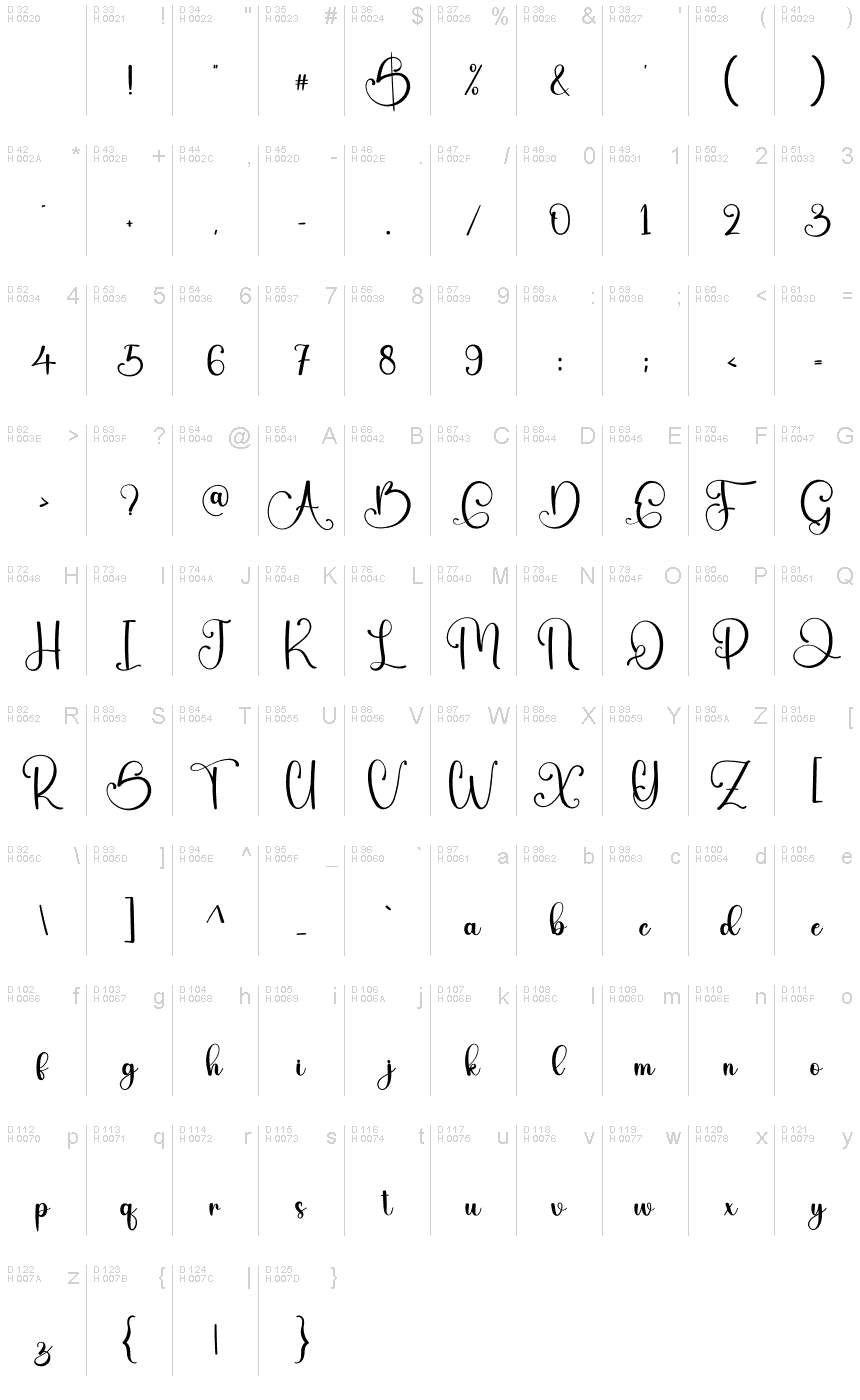
Outline
Outline, a mesmerizing calligraphy font by Harlek Studio, adds an elegant touch to any project. With its semi-light weight and delicate strokes, this font effortlessly exudes sophistication and grace.
Perfect for wedding invitations, greeting cards, or high-end branding materials, Outline brings a sophisticated flair to your designs. Its flowing lines create a sense of movement and fluidity, making it suitable for fashion magazines or luxury brand logos.
Let Outline elevate your work with its timeless charm and exquisite design.
Perfect for wedding invitations, greeting cards, or high-end branding materials, Outline brings a sophisticated flair to your designs. Its flowing lines create a sense of movement and fluidity, making it suitable for fashion magazines or luxury brand logos.
Let Outline elevate your work with its timeless charm and exquisite design.